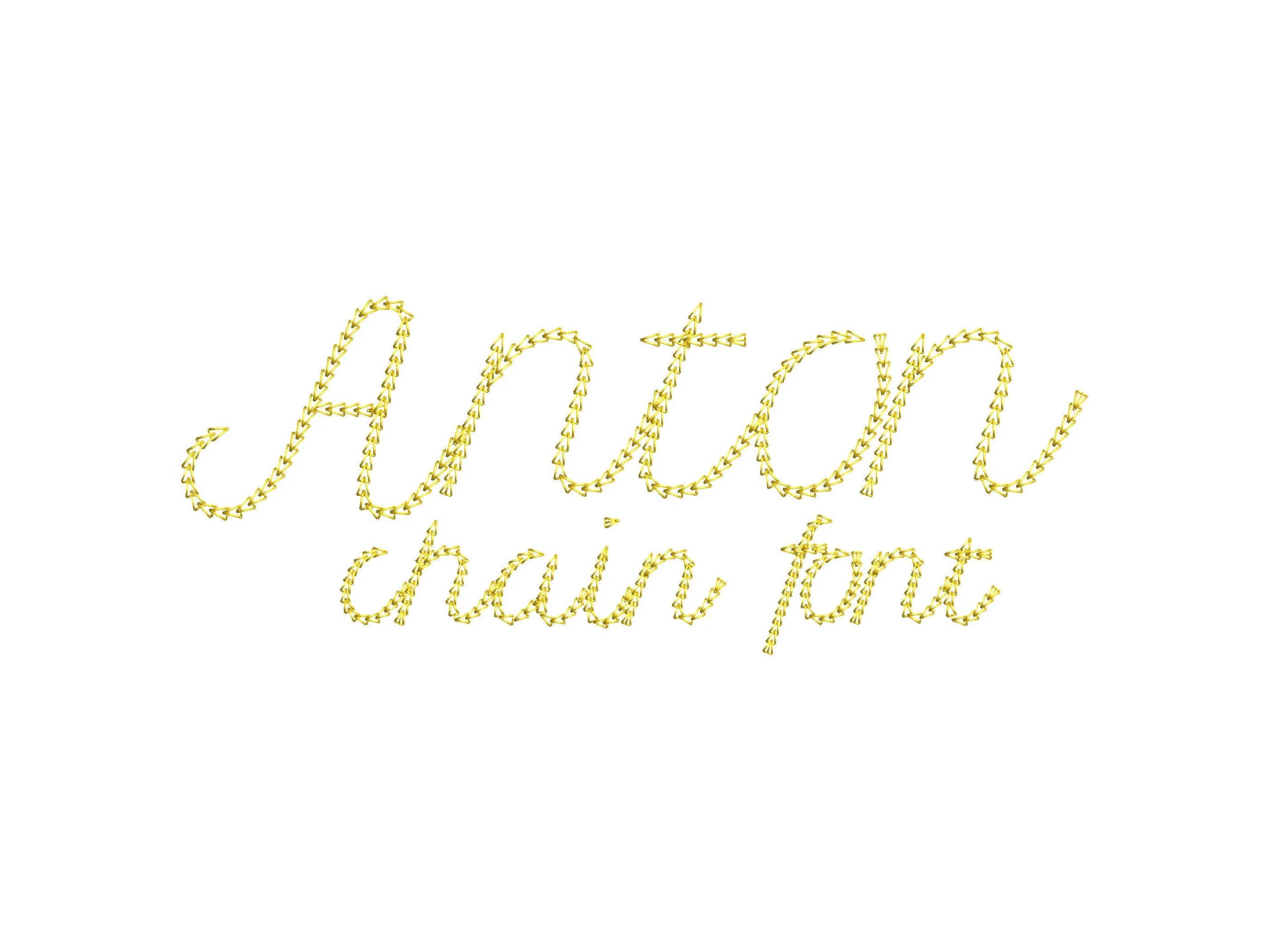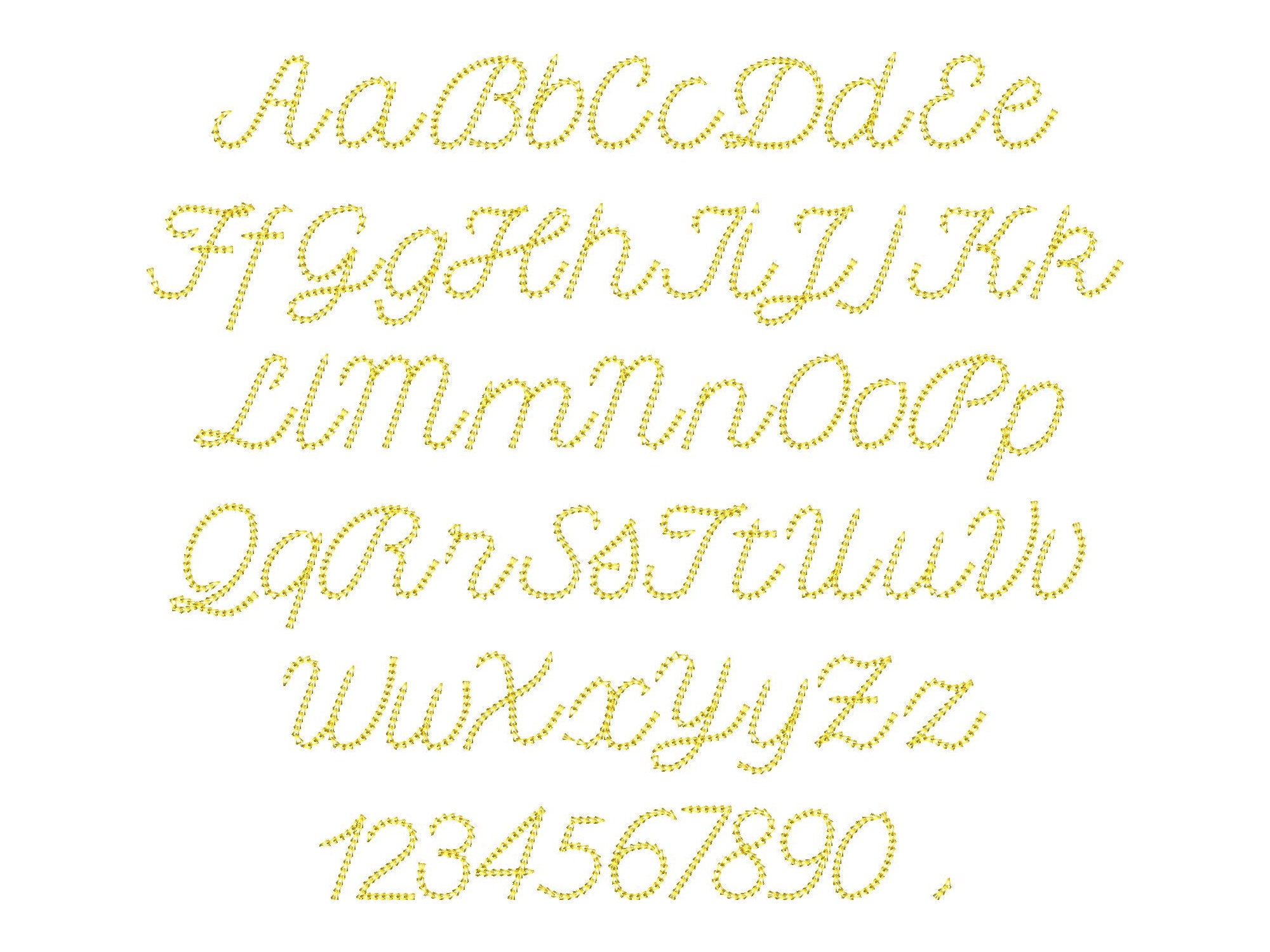
Quick light stitch Anton Chain FONT cursive script alphabet letters machine embroidery designs multiple sizes 0.5 up to 4 inches, kids name
Entire alphabet uppercase and lowercase letters Aa-Zz, and numbers.